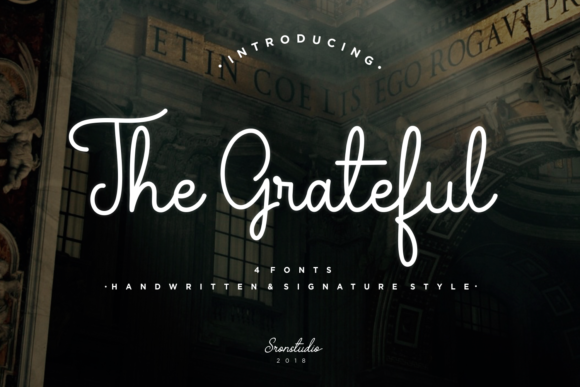
Introducing The Grateful Font – Dive into the world of artistry and creativity with The Grateful, the embodiment of elegance and sophistication in the world of fonts. Its script font weaves a tapestry of visual allure, adding a touch of heartfelt authenticity to your designs.
Embrace the charm of The Grateful's handwritten style, meticulously crafted to infuse your words with a human touch. Its monoline design exudes a captivating simplicity, while its neat and polished strokes convey an air of professionalism. The Grateful is an artistic chameleon, a font that effortlessly adapts to any project, adding a touch of intrigue and visual appeal. Whether you're crafting brand identities, designing marketing materials, or creating social media graphics, The Grateful is your ultimate companion in the realm of visual expression.
The versatility of The Grateful knows no bounds. With four captivating versions, this font collection provides a symphony of possibilities to match your creative vision. From the classic appeal of the Regular version to the playful charm of the Slanted version, The Grateful offers endless opportunities to make your words dance off the page. Its Rough version adds a touch of organic grit, while the Rough Slanted version embodies the spirit of effortless elegance.
With The Grateful, your design dreams take flight. Its intuitive design allows you to effortlessly create captivating visuals, even if you're a design novice. Unleash your creativity and watch your words transform into works of art that draw eyes and captivate hearts. As you explore the depths of The Grateful's artistry, you'll discover a world where inspiration flows effortlessly from your fingertips.
Join the ranks of creative visionaries who have embraced The Grateful as their font of choice. Let your designs bloom with elegance, authenticity, and a touch of the unexpected. Elevate your projects to new heights with The Grateful, where beauty and innovation collide, creating a visual symphony that resonates with your audience.